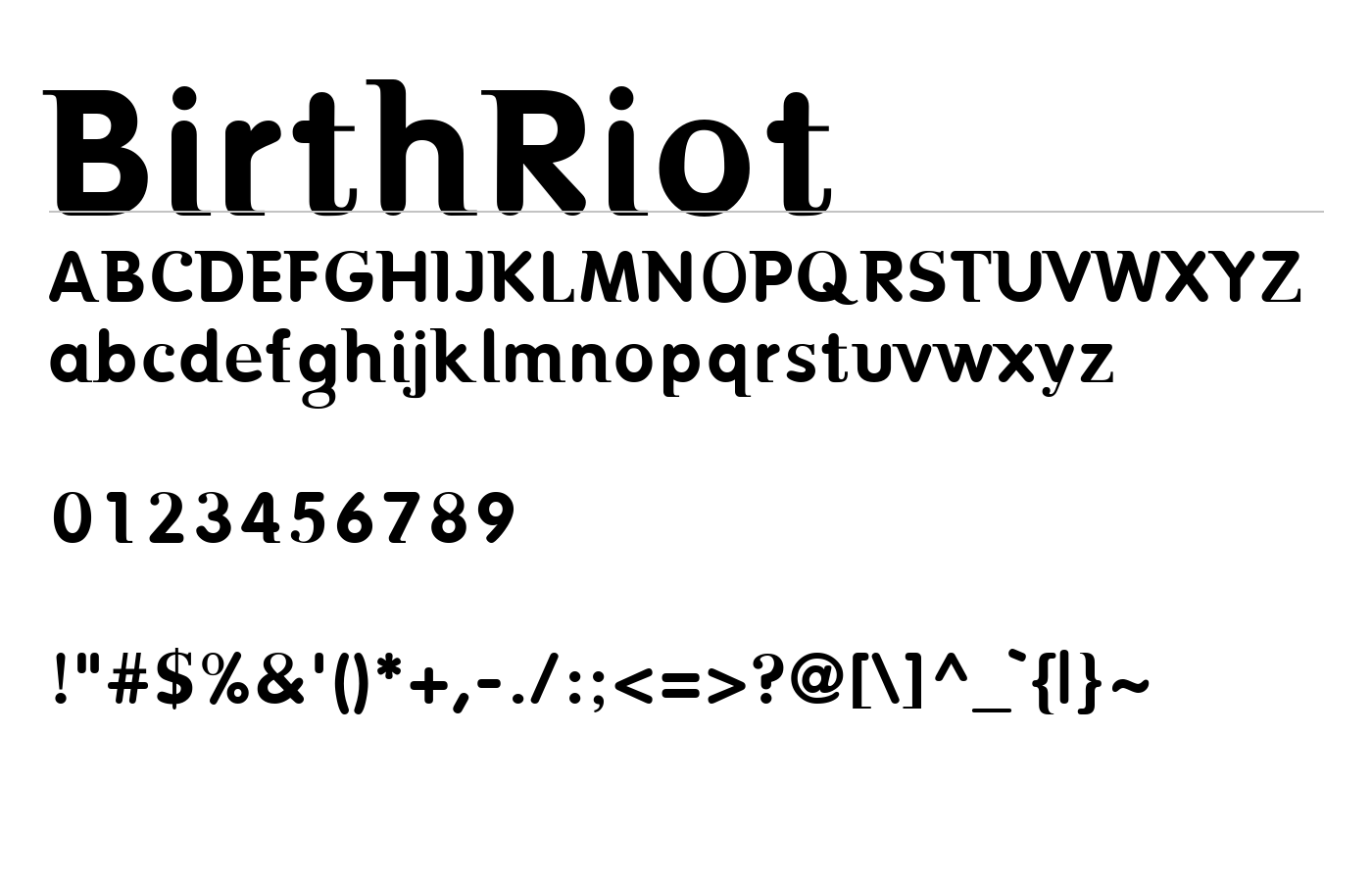
BirthRiot is a bold slab serif font with a friendly and slightly playful character, featuring rounded terminals and moderate stroke contrast that give it a unique, approachable vibe. Its mix of sharp edges and soft curves makes it suitable for eye-catching headlines, branding, and editorial use where a modern yet warm feel is desired. This font works well for projects aiming to balance strength with personality, such as creative logos, posters, and fashion or lifestyle packaging.
BirthRiot Font
About BirthRiot Font